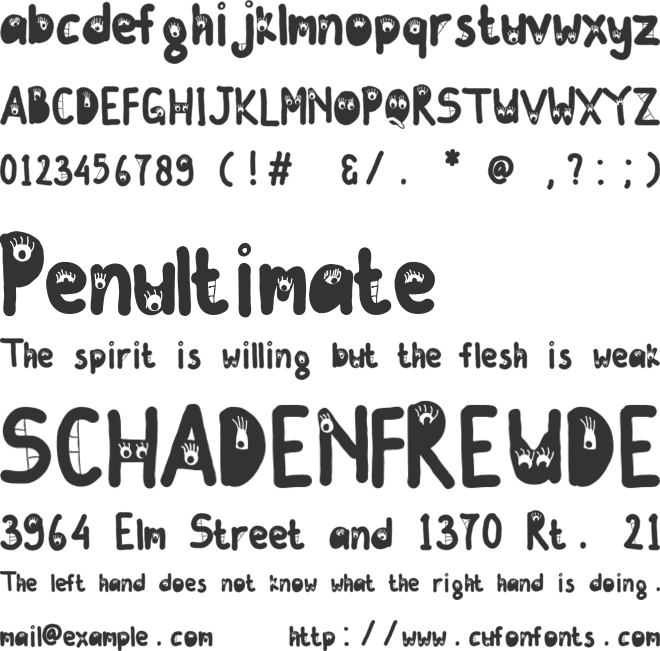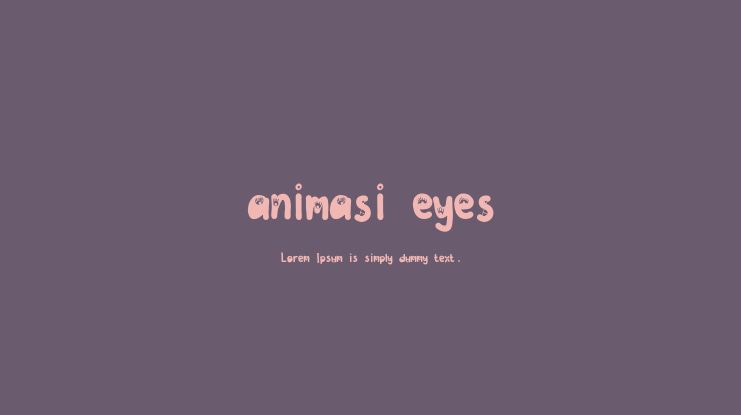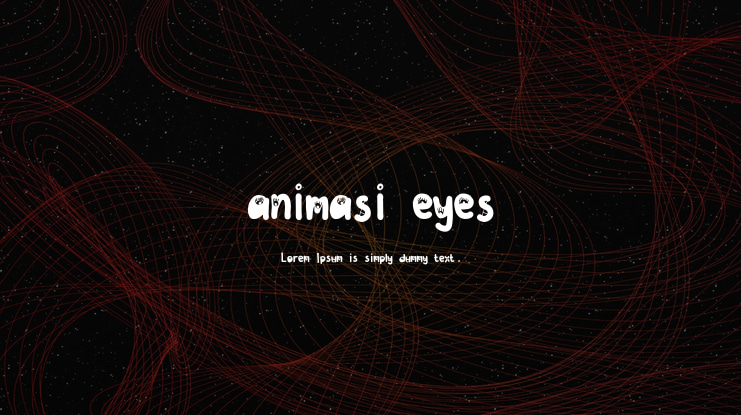
animasi eyes Font
Animation Eyes is a cute and quirky display font, featuring eyes as ornaments. A little bit quirky, this font looks incredibly adept on a wide variety of contexts!